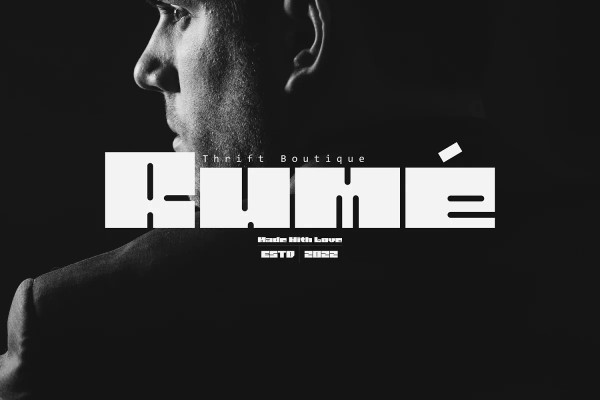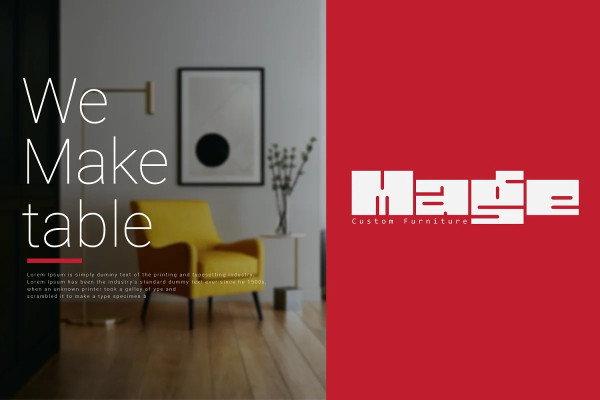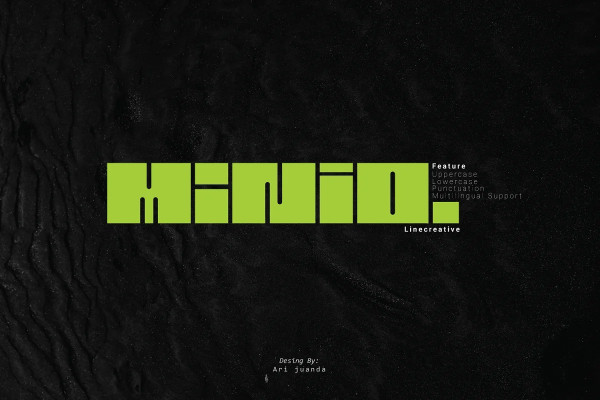
Minio Font
Minio Font is a cubical mechanic, futuristc display. It’s fun and groovy with a bold personality. Perfect for logo, Brand,title or anything your creativity takes you.